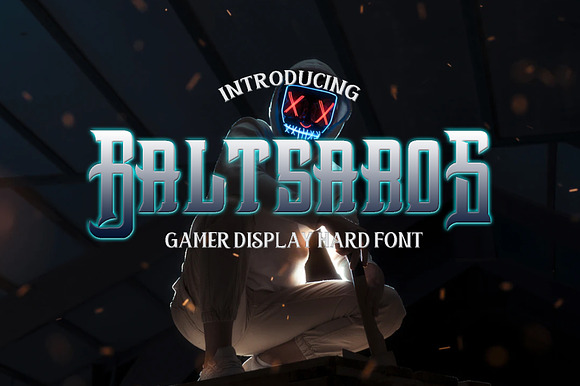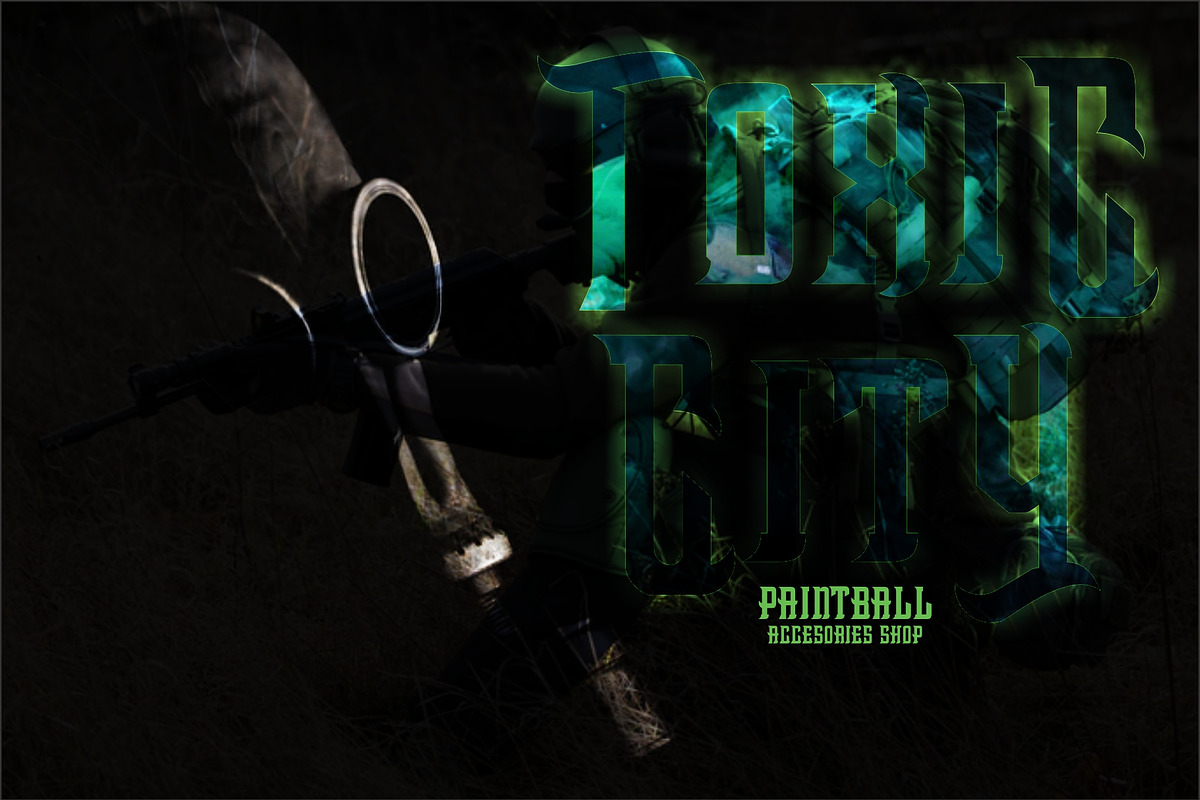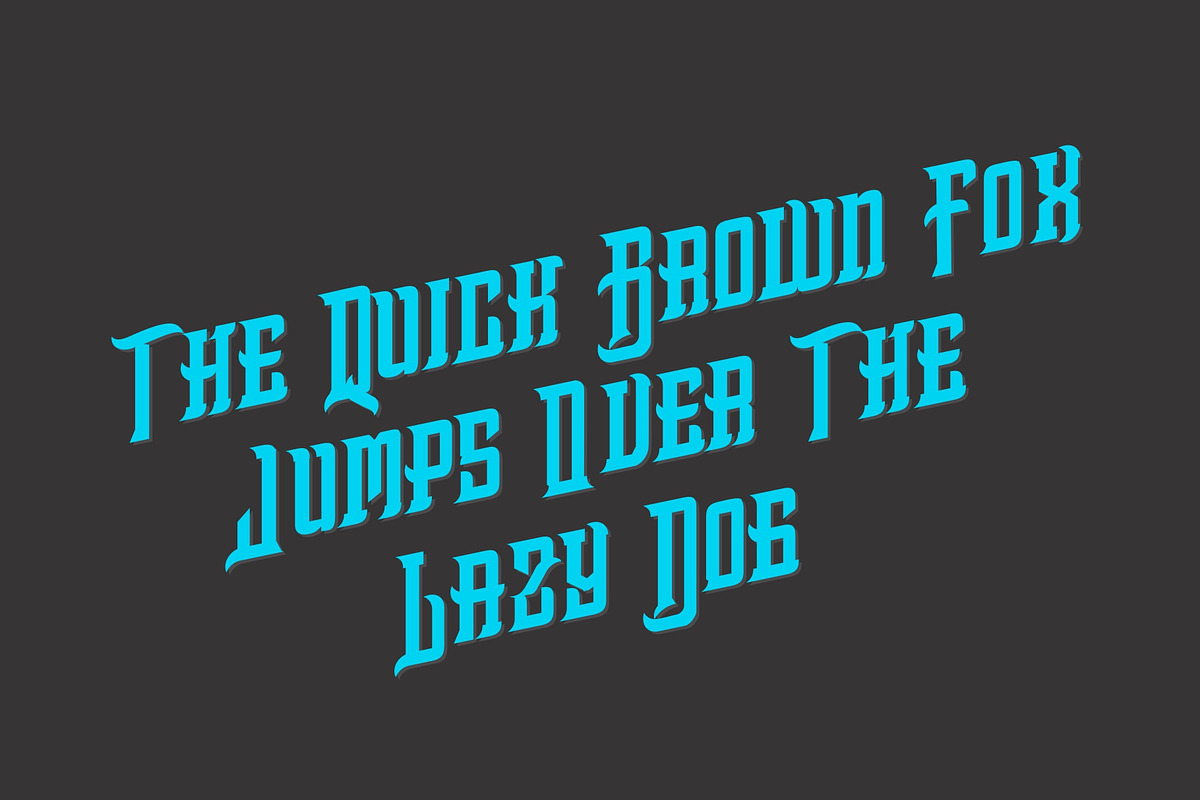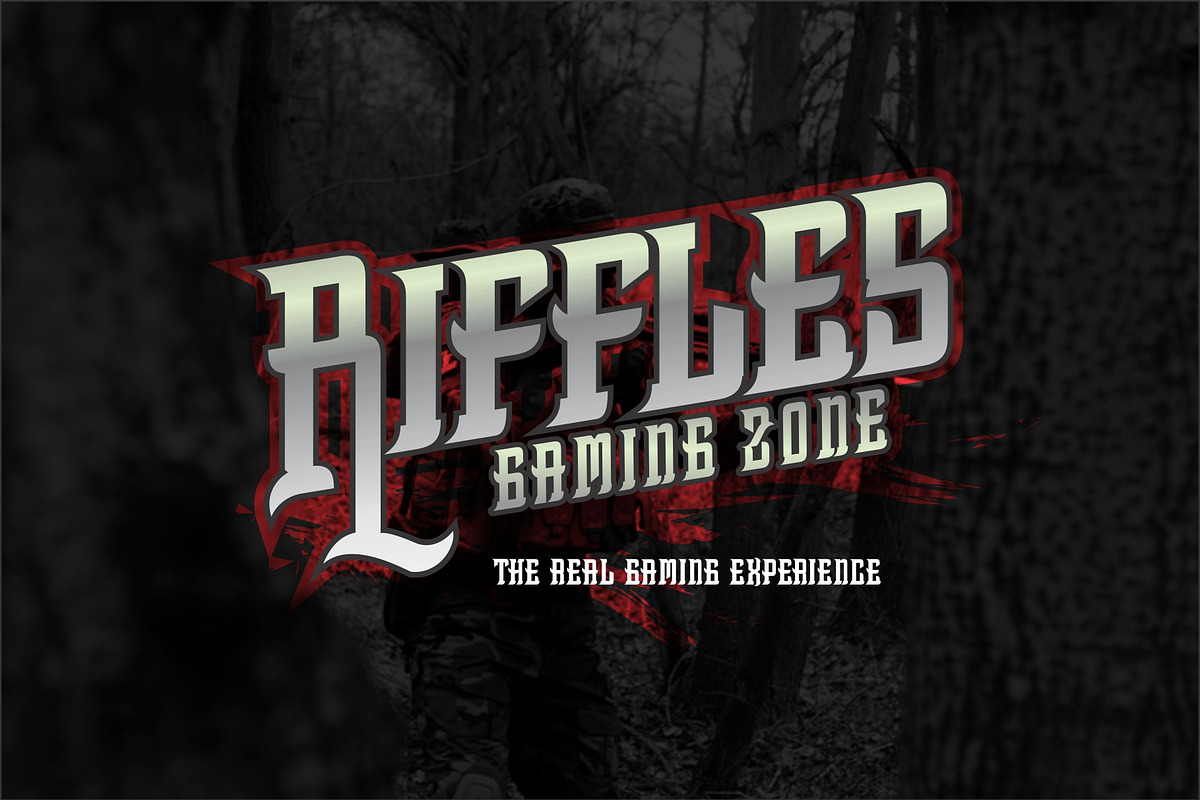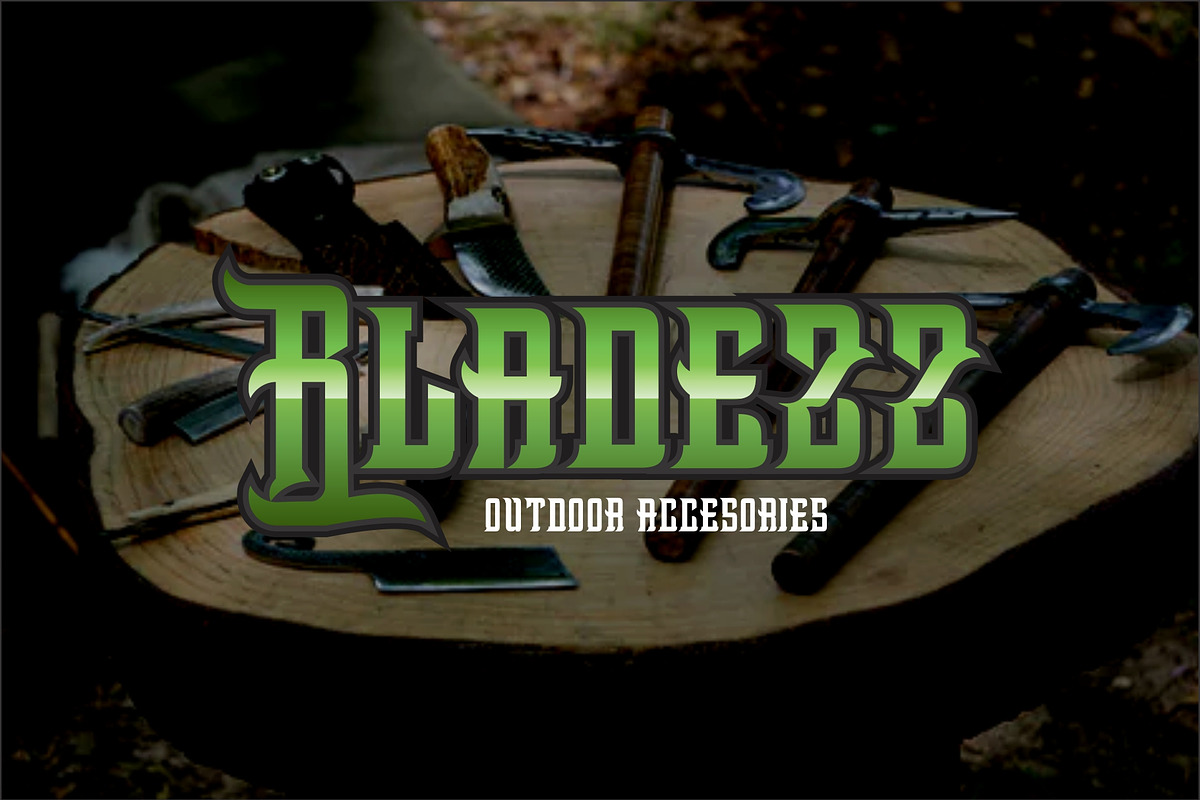
BaltsaroS -Heavy Metal black Font
Baltsaroz is a character font, Strong, Sharp, Bold, tends to display masculine characters, so it is applied to designs that require this type of font such as paintball design, gaming logo, rock and metal logo bands, t-shirt design, sporty and spirit.